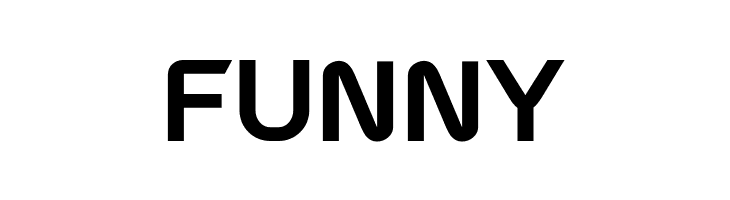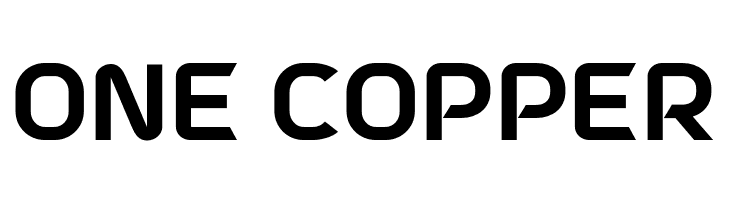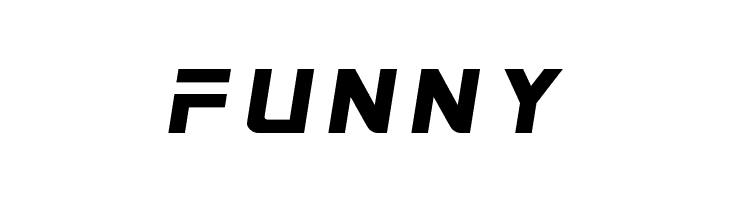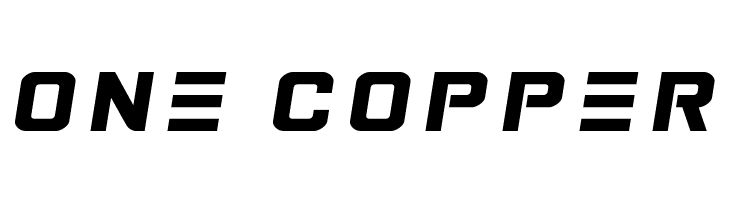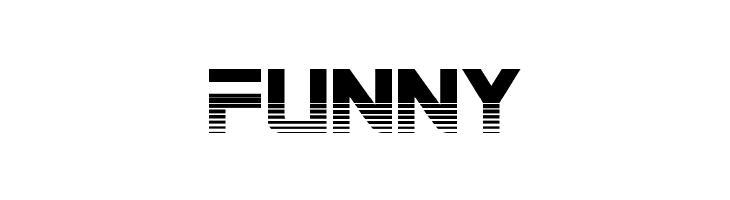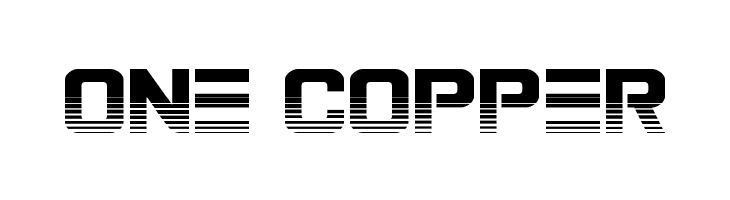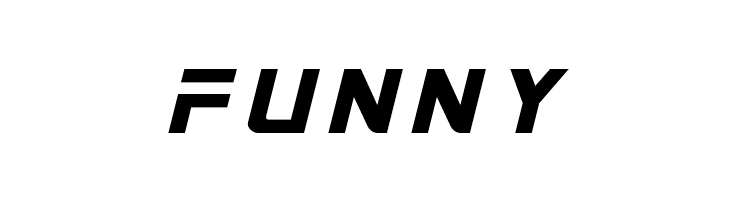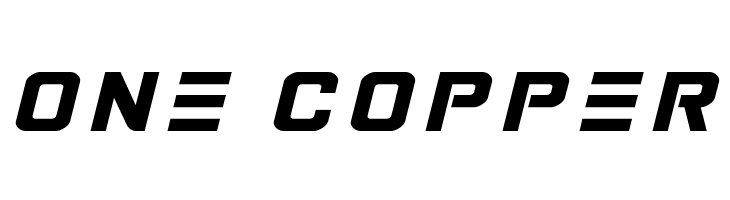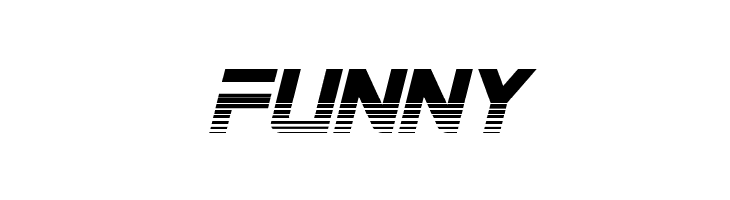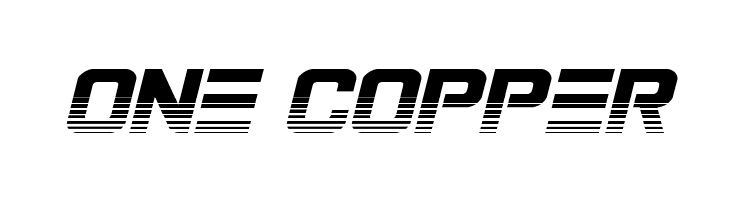
A bold, futuristic font with geometric shapes and sharp angles.
A futuristic italic font with bold, angular letterforms and a dynamic style.
A futuristic, semi-italic font with bold, angular characters and a geometric style.
A futuristic, two-tone font with a dynamic, striped design.
A futuristic, two-tone italic font with a dynamic and speedy appearance.
A bold, futuristic font with geometric and angular letterforms.